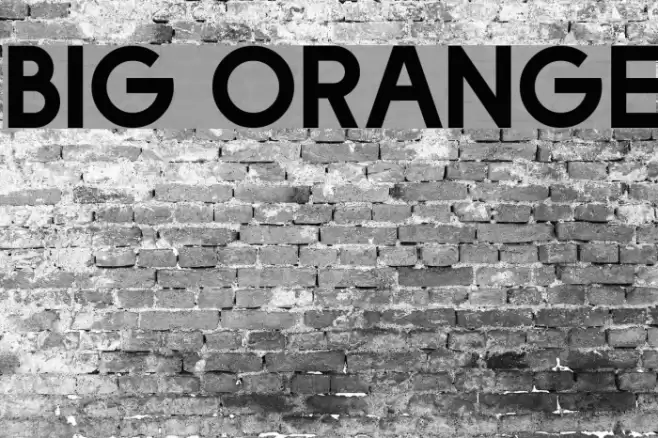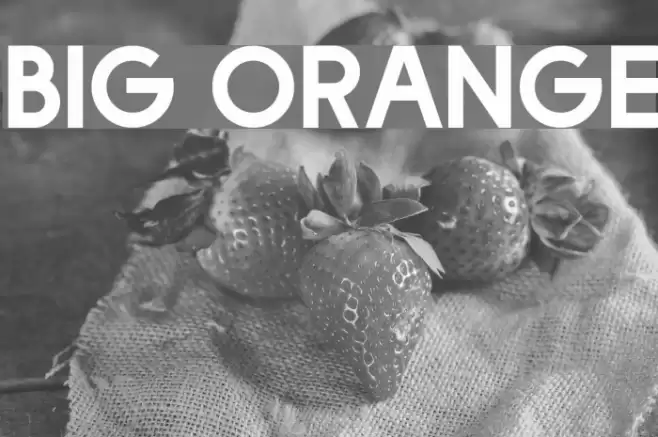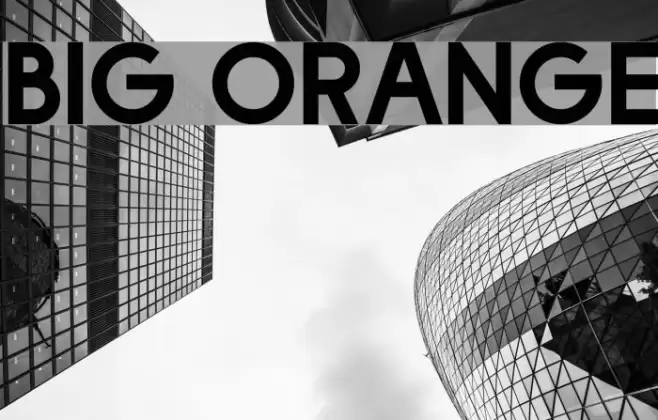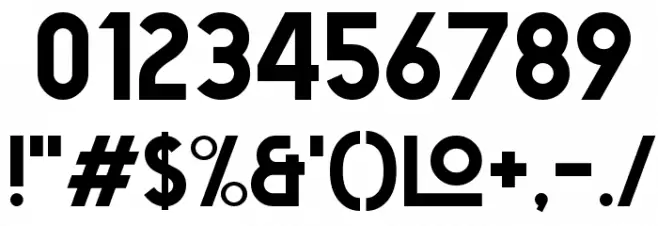
Big Orange Font
Big Orange Description
This font features a bold and modern sans-serif design with clean, geometric lines. The uppercase letters are uniform in height, providing a strong and consistent appearance. The lowercase letters maintain the same geometric style, ensuring readability and a cohesive look. The numerals are clear and distinct, matching the boldness of the alphabet. Special characters are well-defined, complementing the overall style. This font's simplicity and clarity make it versatile for various design applications.
A bold, modern sans-serif font with clean, geometric lines from Uncategorized fonts.
- Proposed Projects: Ideal for branding, advertising, headlines, and digital media projects.
- Use Case: Headlines, Logos, Branding